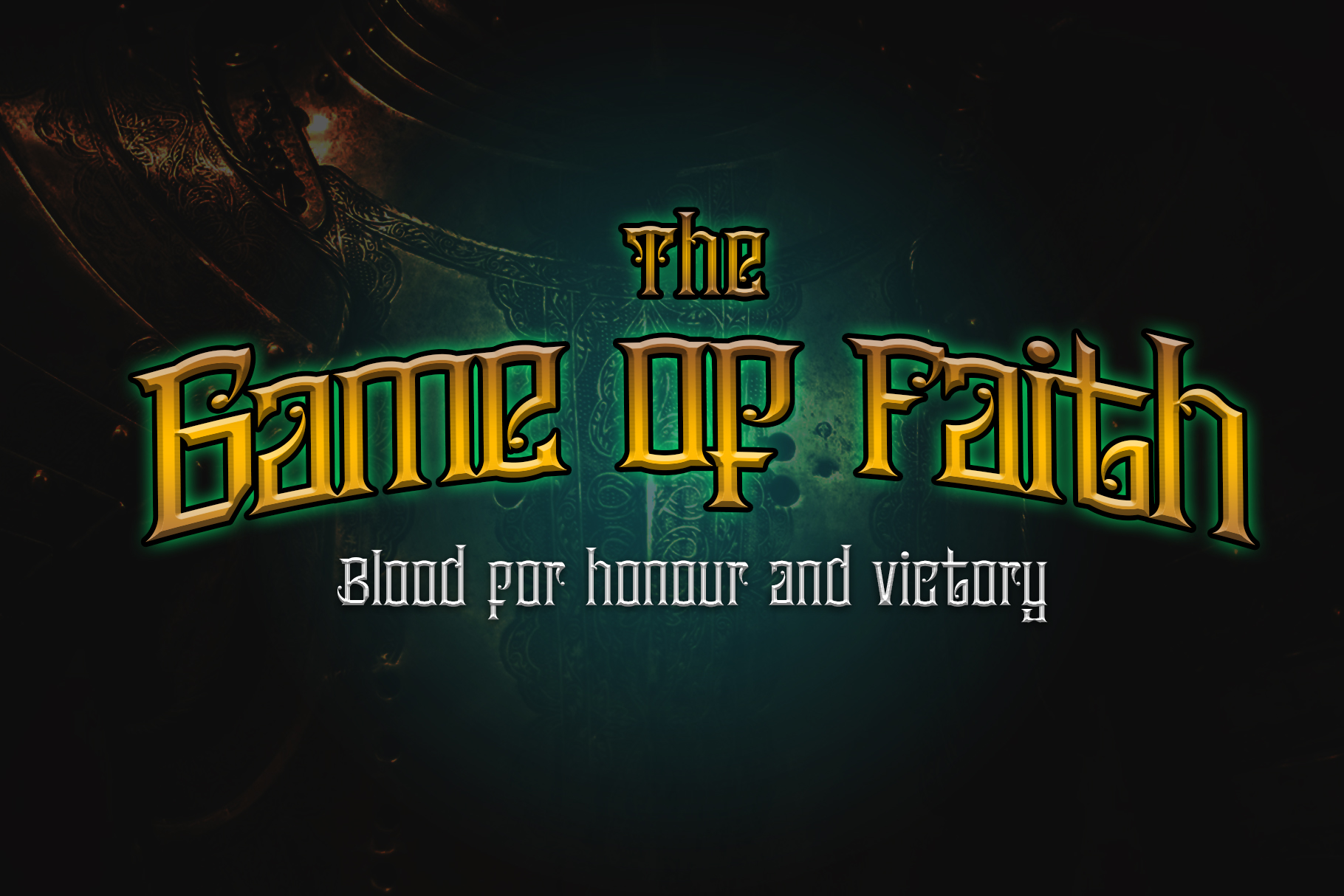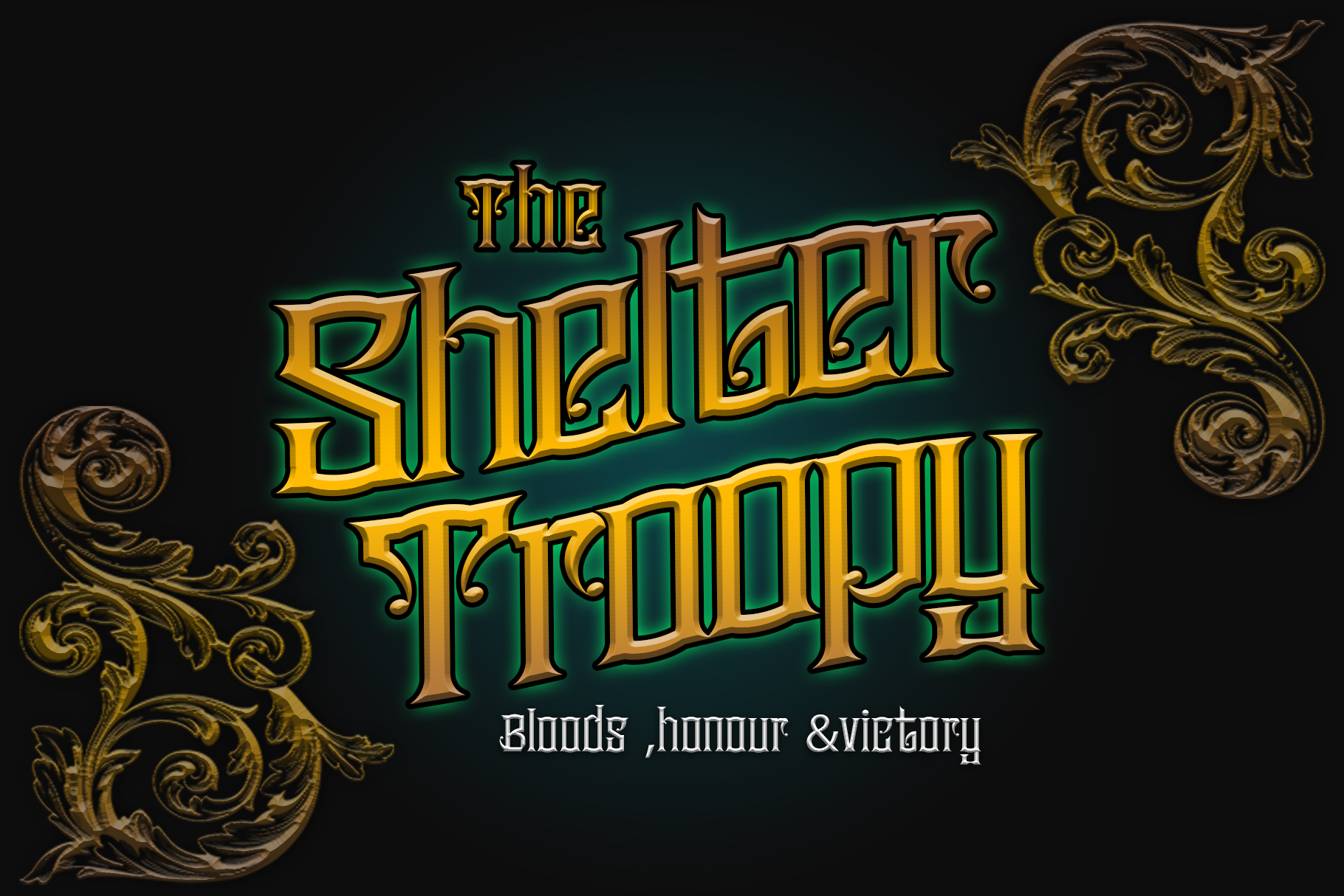
VICTORY Font
VICTORY Display Font
This font is inspired by traditional ornament fonts, with a variety of mixed styles, strong character, masculine, very iconic and patriotic, so it is very suitable to be applied as a font for your design needs. with a classic and traditional style.